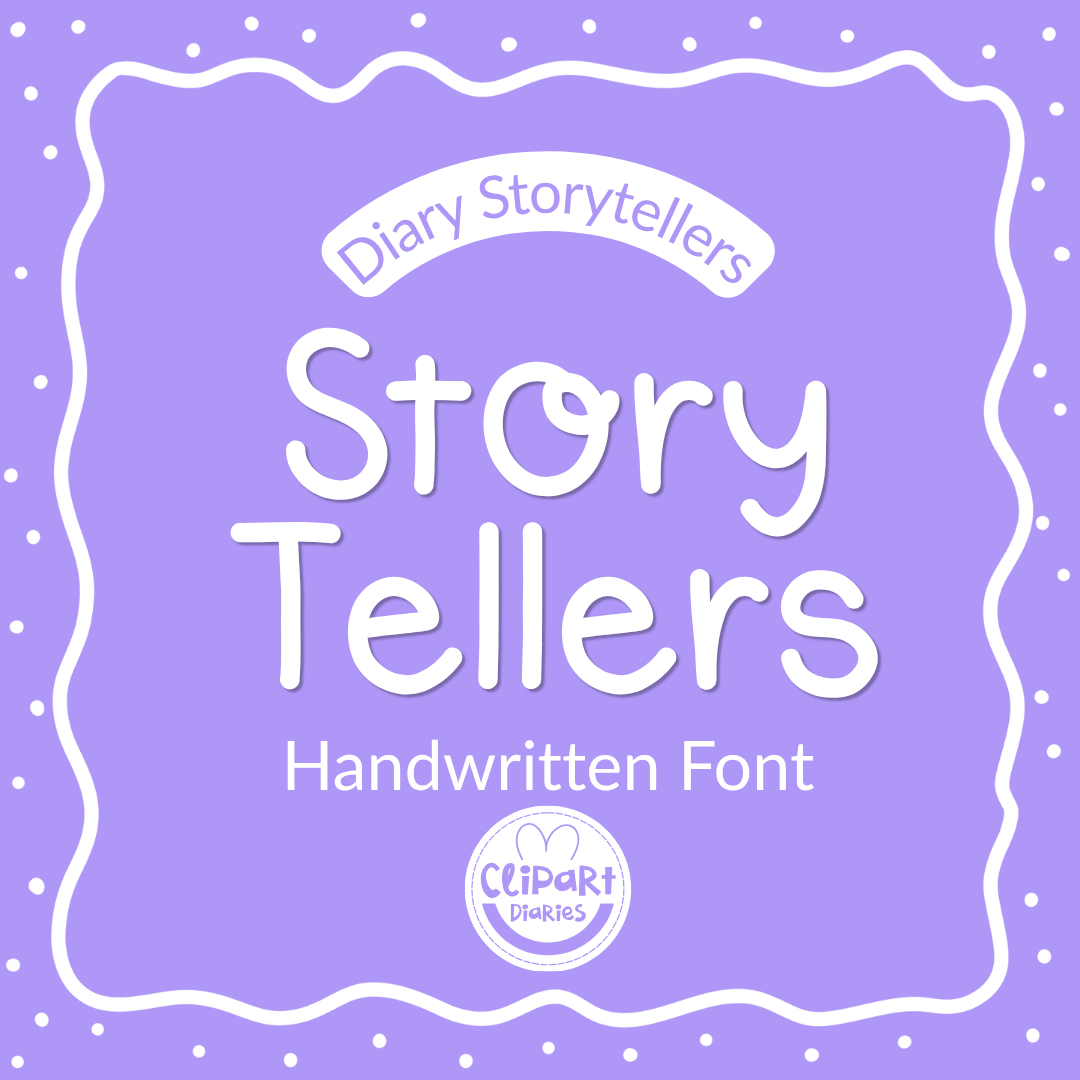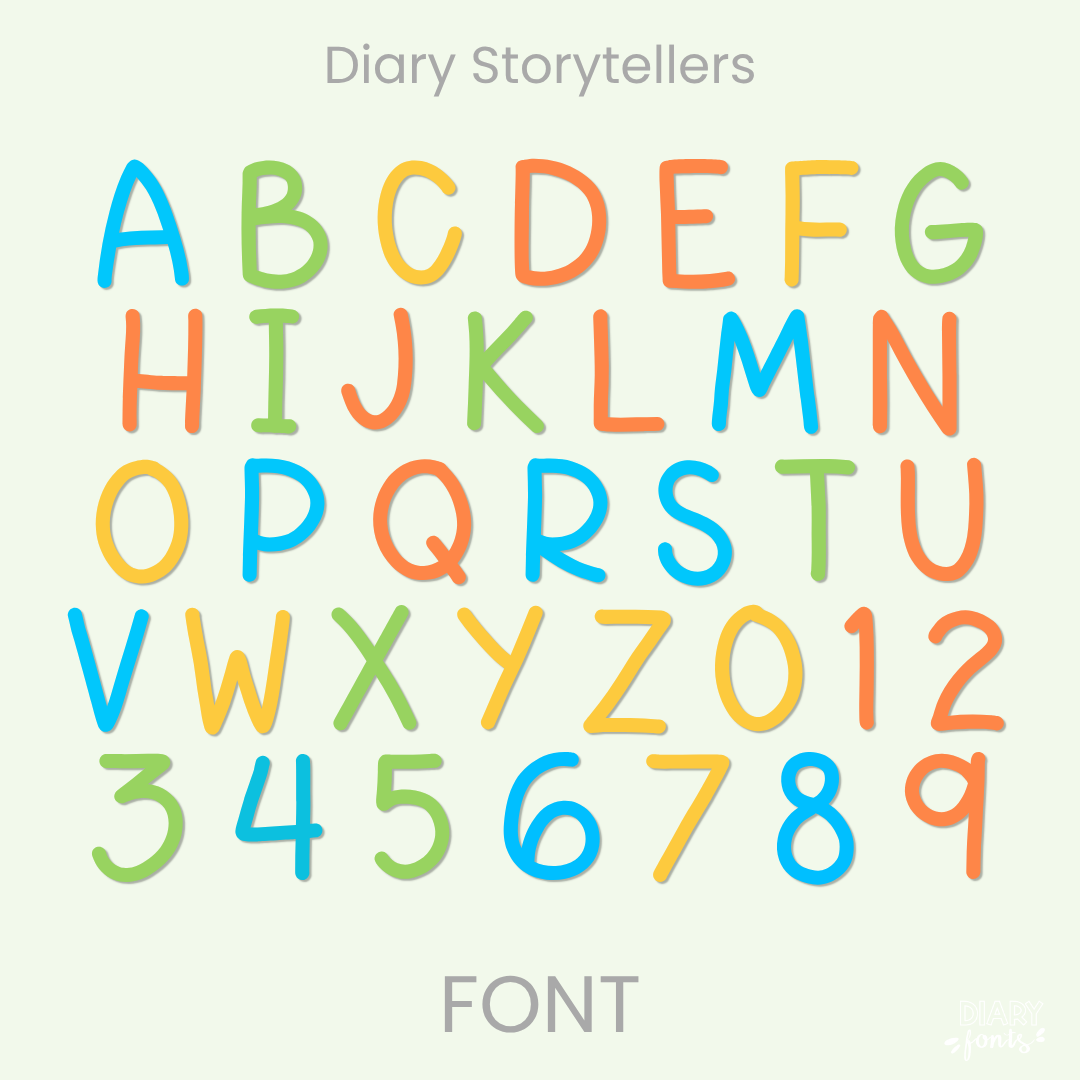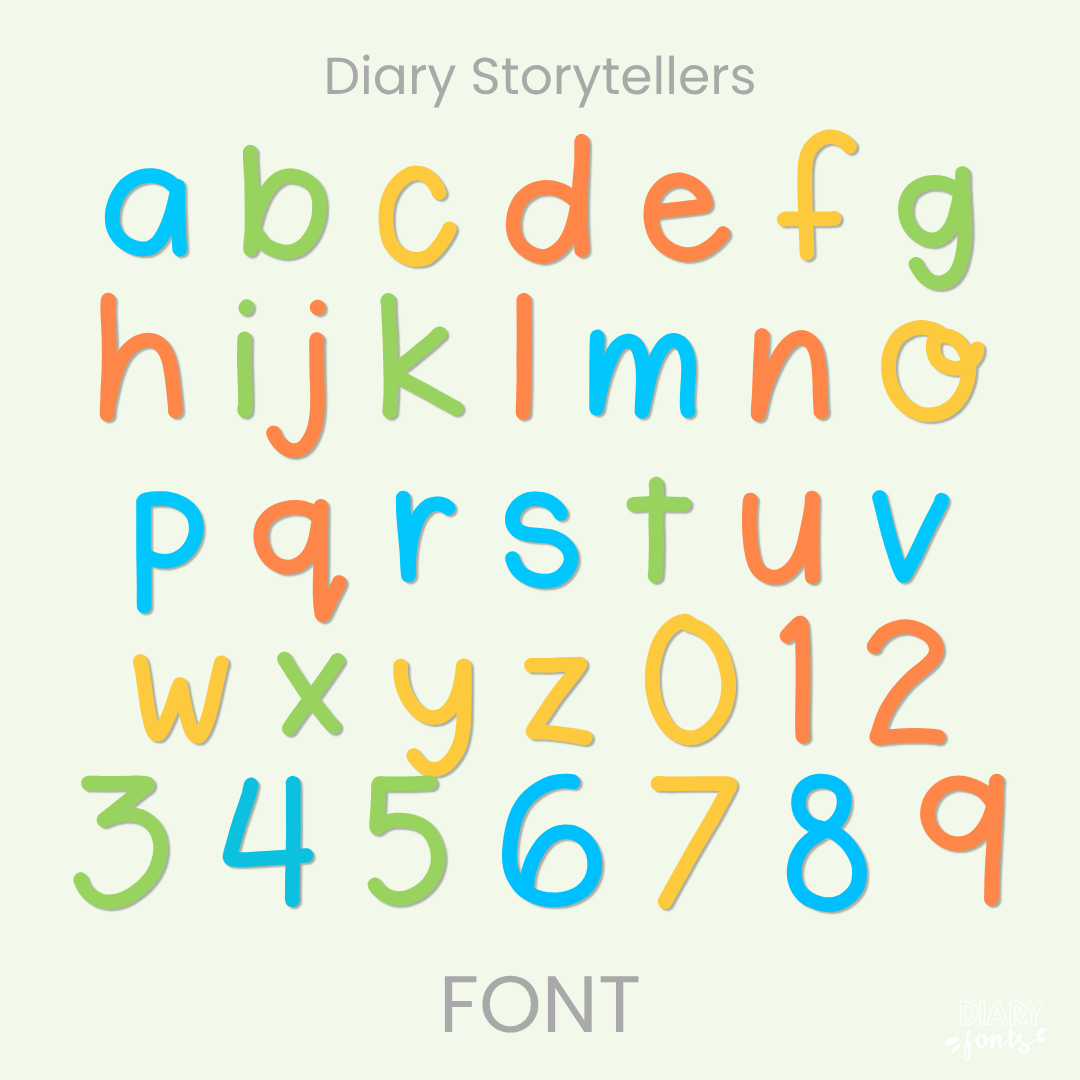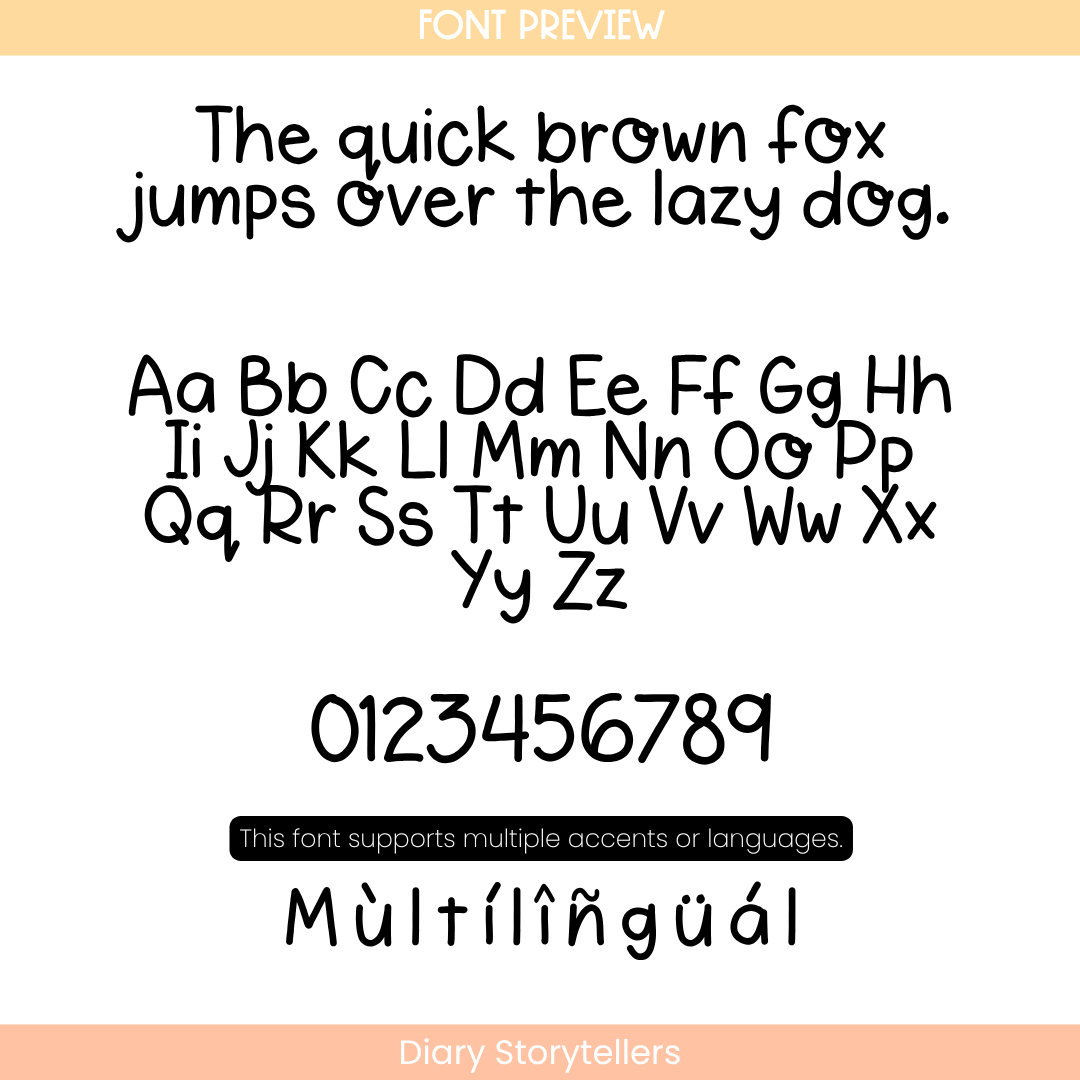
Diary Storytellers – Handwritten Font
Diary Storytellers is that sweet, whimsical teacher font and primary classroom print typeface you need to bring a cozy, narrative charm to your daily resource designs and morning slides!
If you’ve been searching for a go-to handwritten font that captures all the magic of a cozy classroom read-aloud circle, Diary Storytellers is about to become your new absolute favorite. This precious typeface features perfectly uniform line weights blended with a gentle, organic hand-lettered vibe. With its beautifully rounded curves and open, airy letterforms, it completely cuts out the background noise—giving your text a beautifully styled look that your sweet students can read and track with absolute ease.
It is the absolute perfect choice for typing up classroom library labels, morning meeting message boards, elementary reading comprehension worksheets, and daily presentation slide fonts where you want a friendly, inviting feel. Inside the download, you’ll get a full set of neat uppercase and lowercase print letters, clean numbers, and multi-accent markings for complete multilingual support. It drops right into Canva, MS Office, or Adobe on your desktop, and pairs beautifully with Procreate and GoodNotes on your iPad. Whether you’re prepping weekly printables for your own sweet classroom or designing fresh new commercial-use resources for your online teacher shop, this storytelling display font adds a touch of confident, warm style to your creative toolkit.